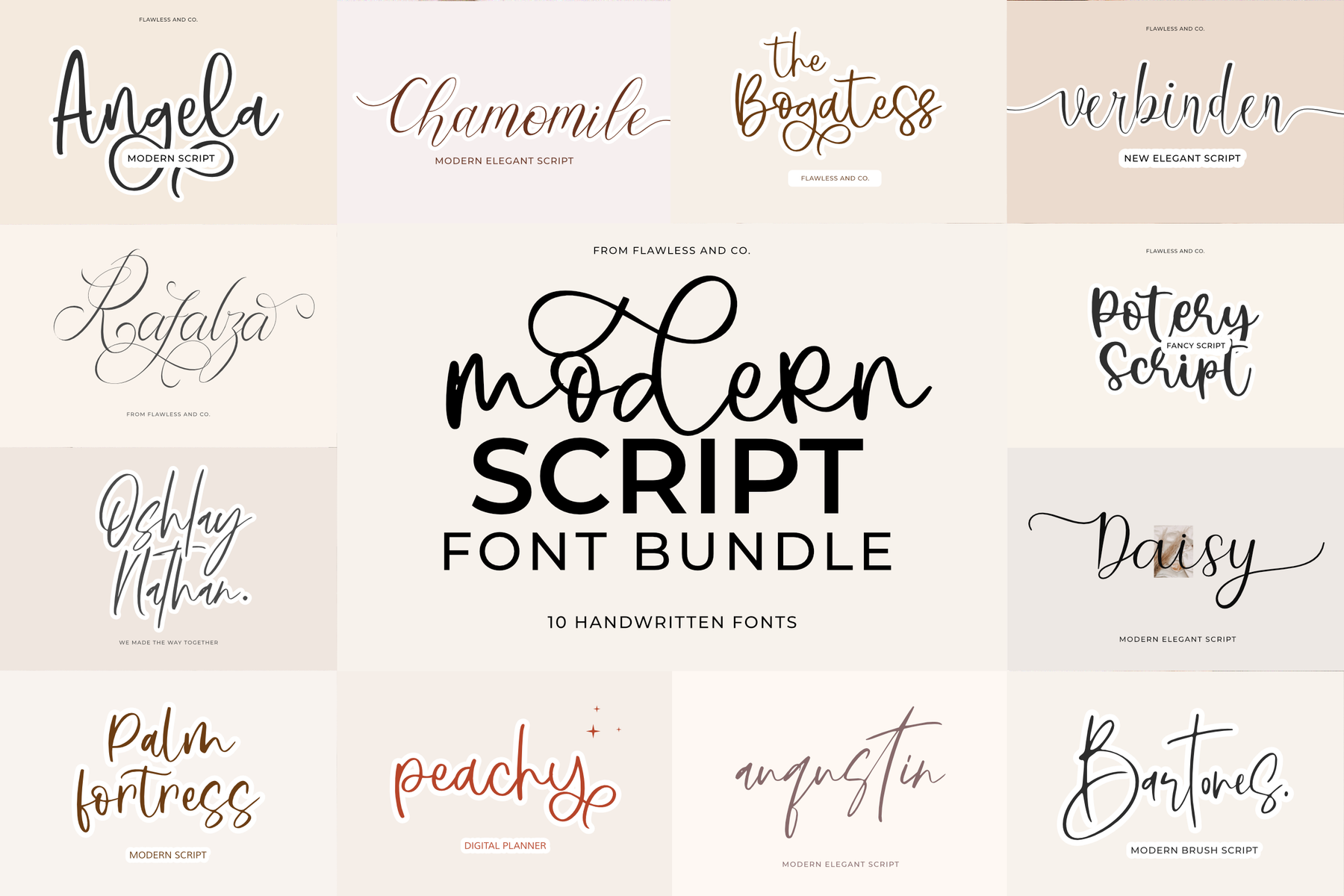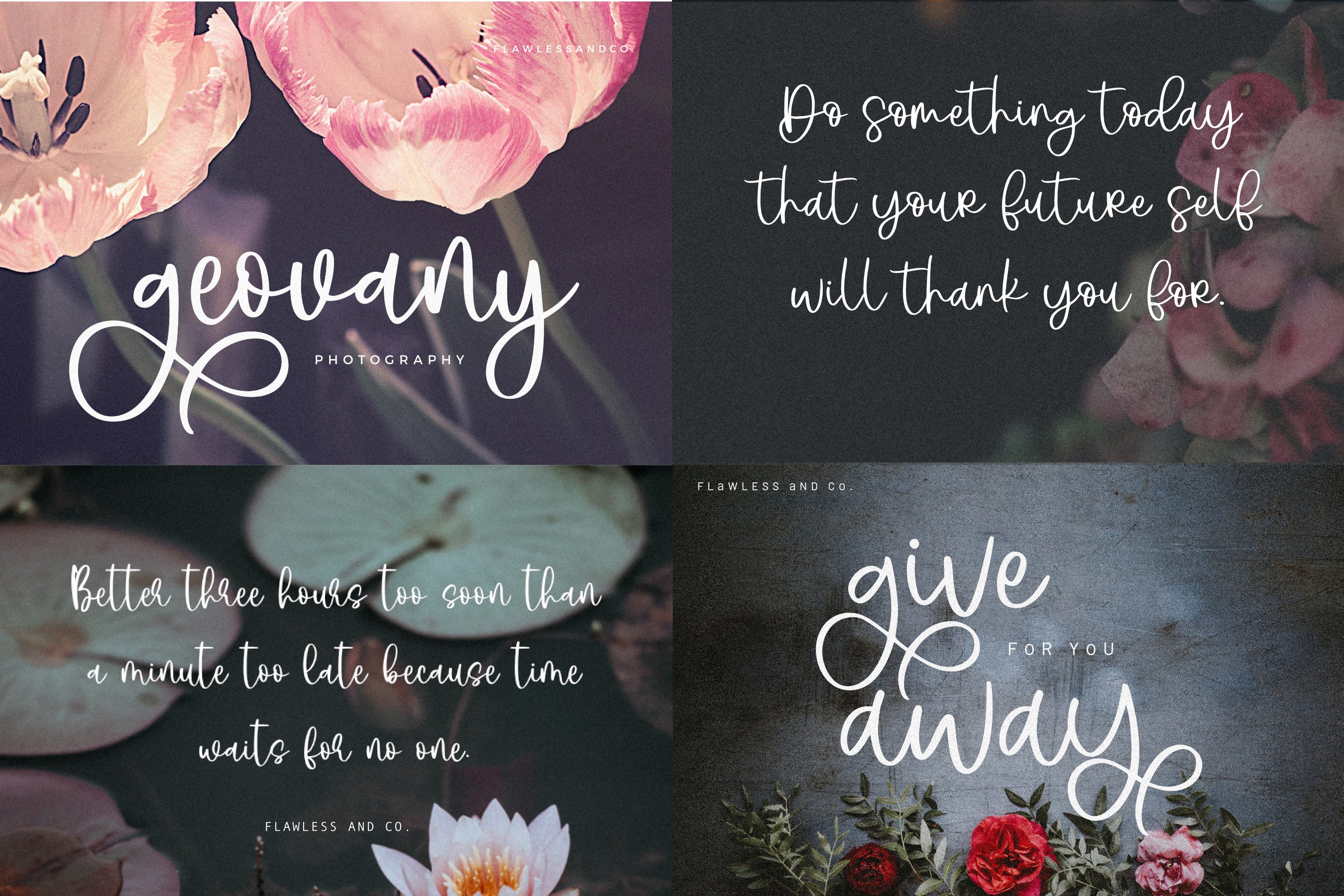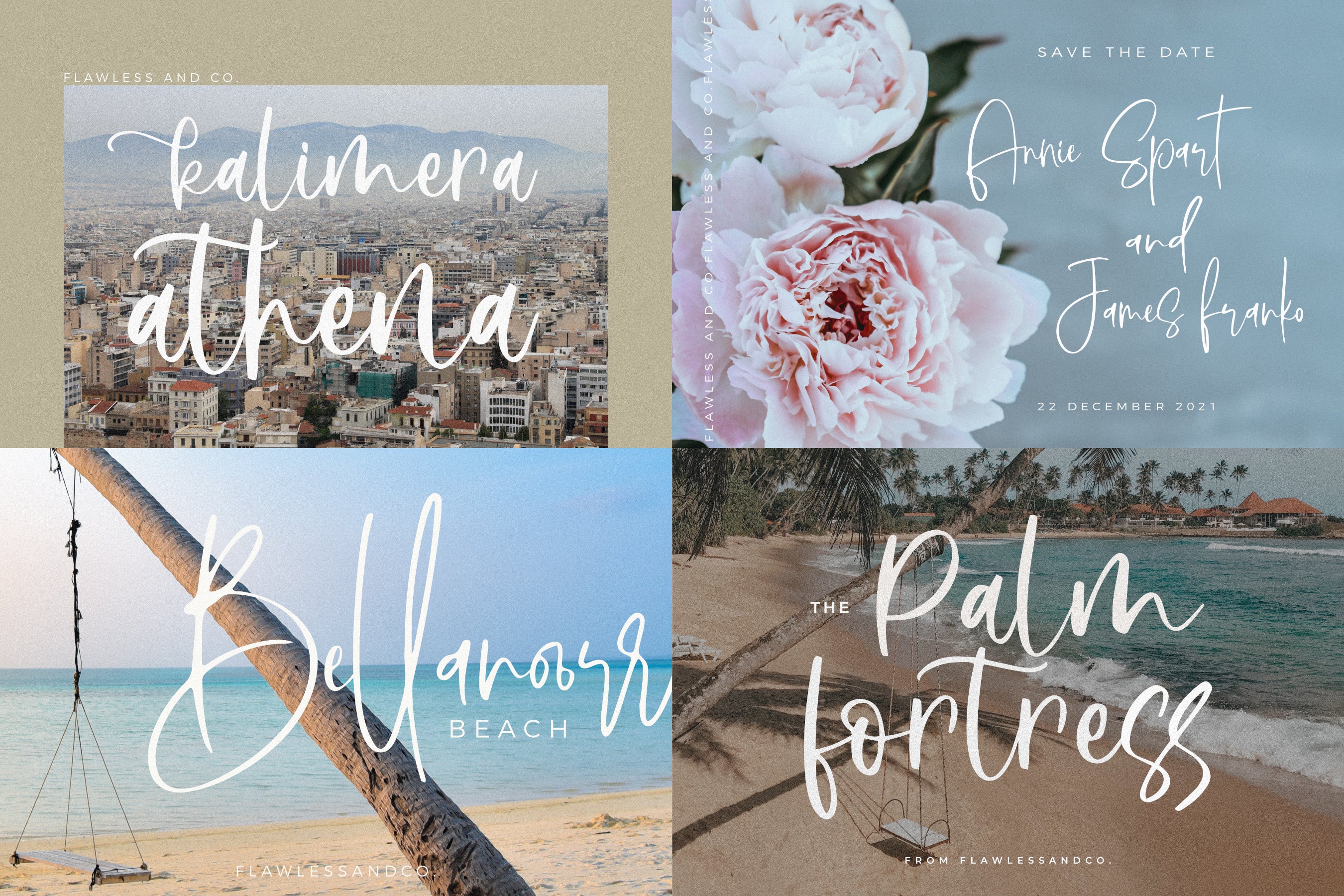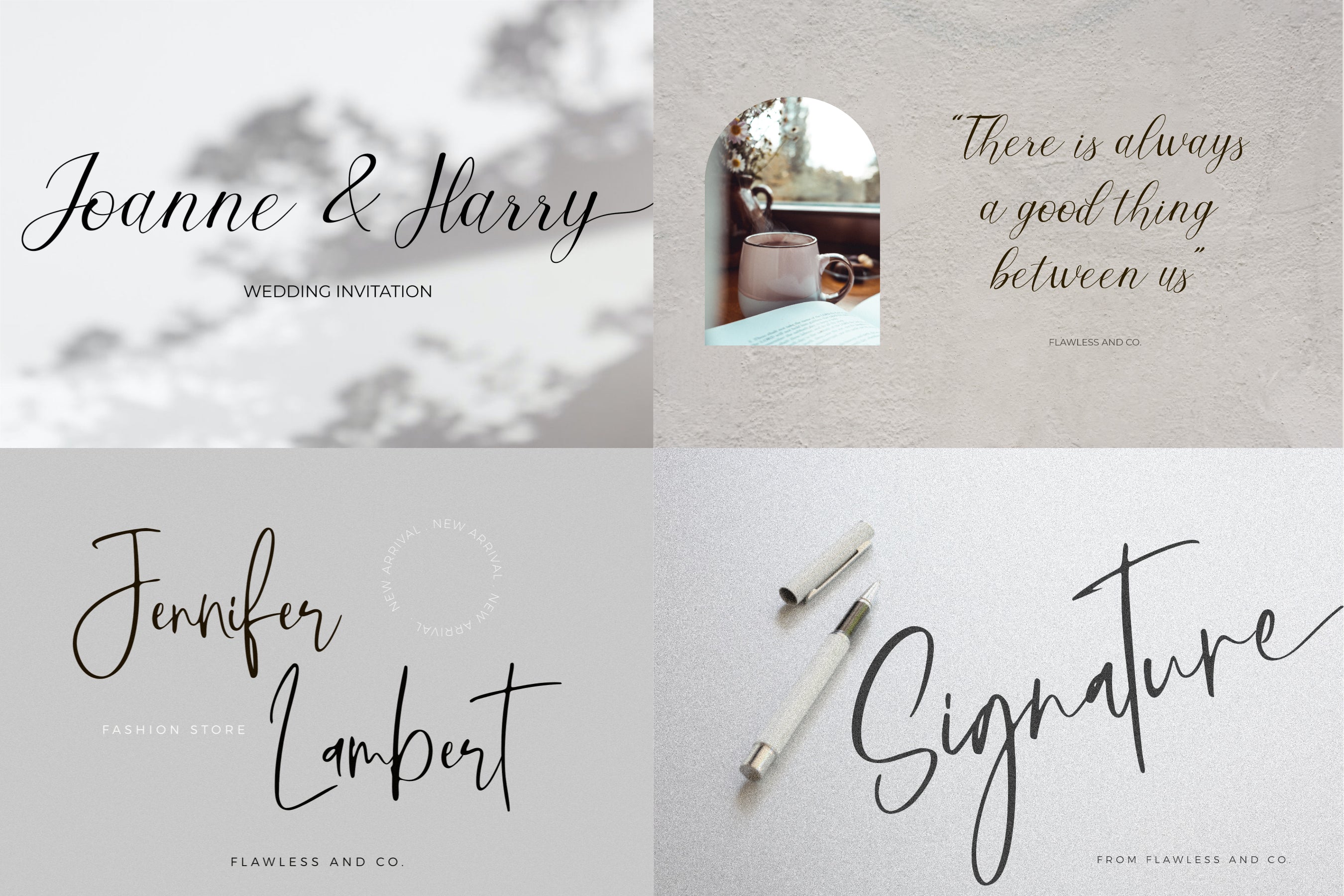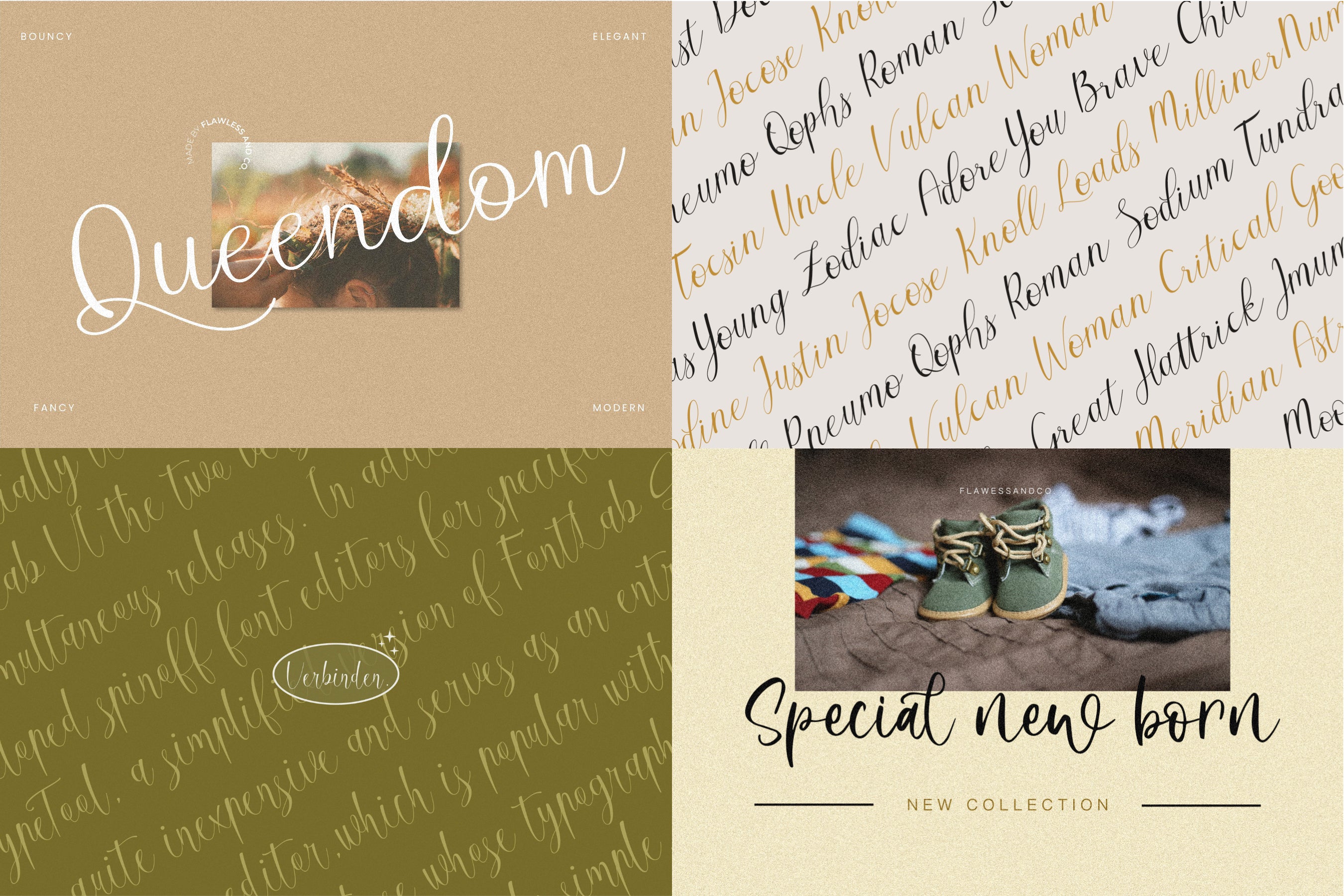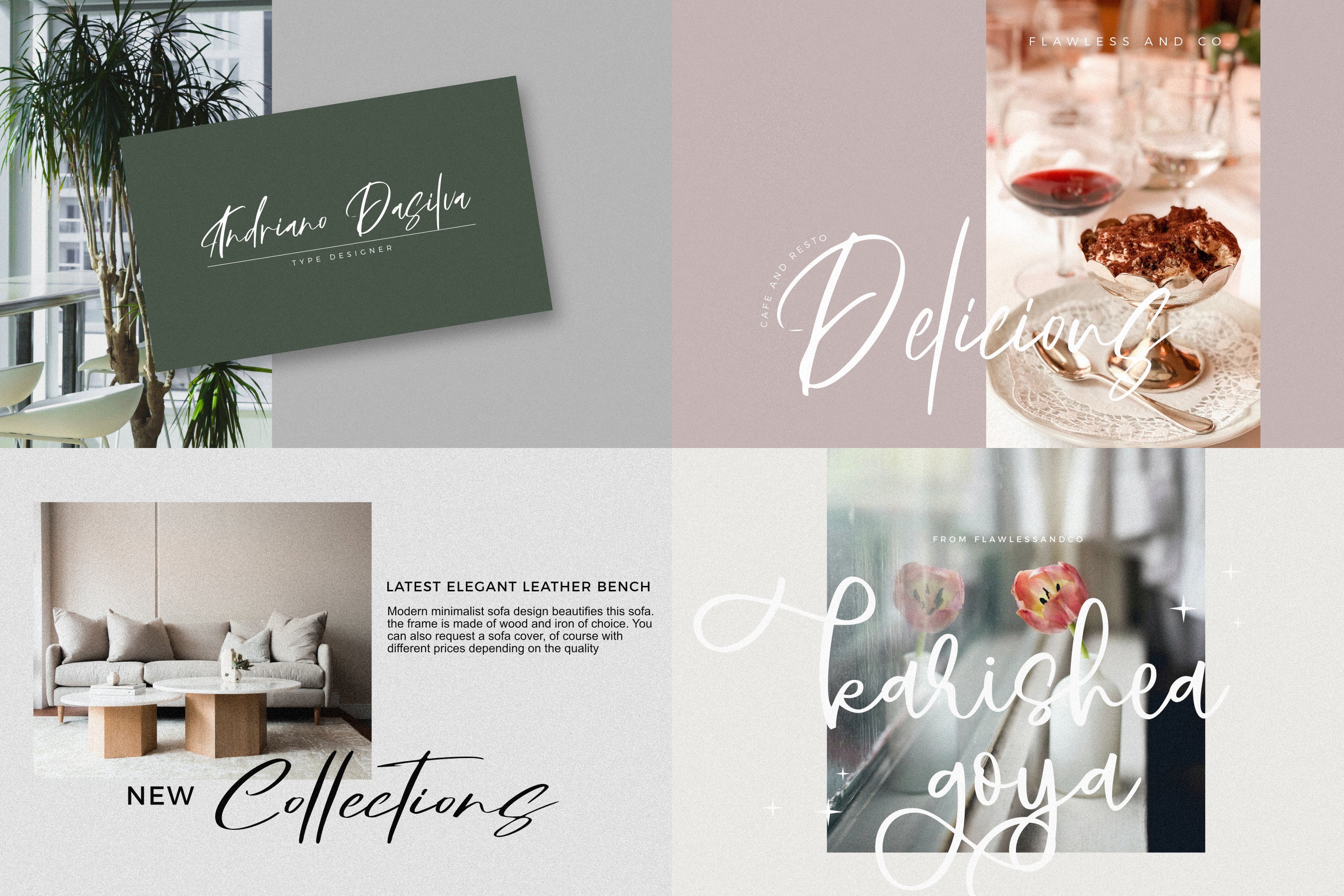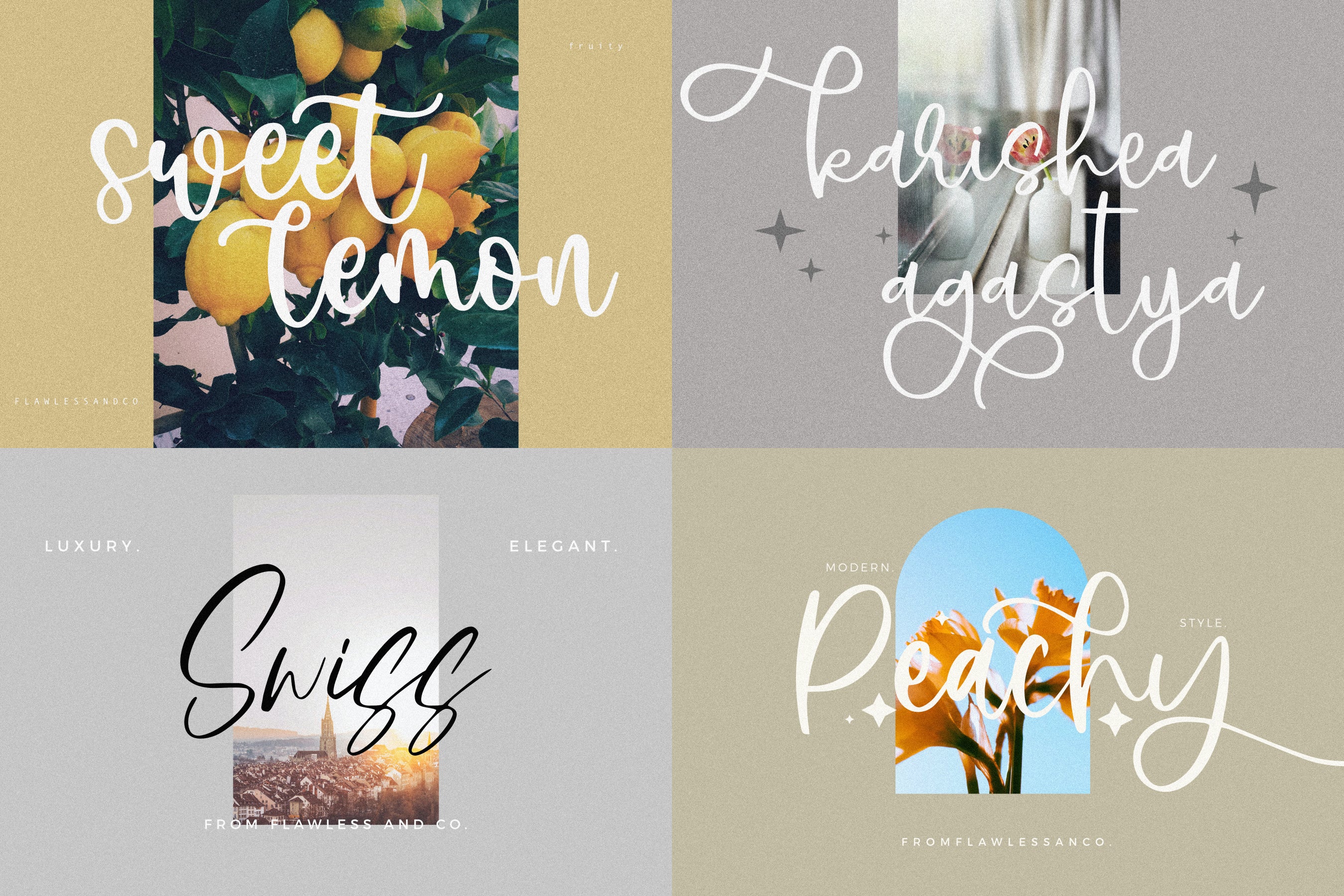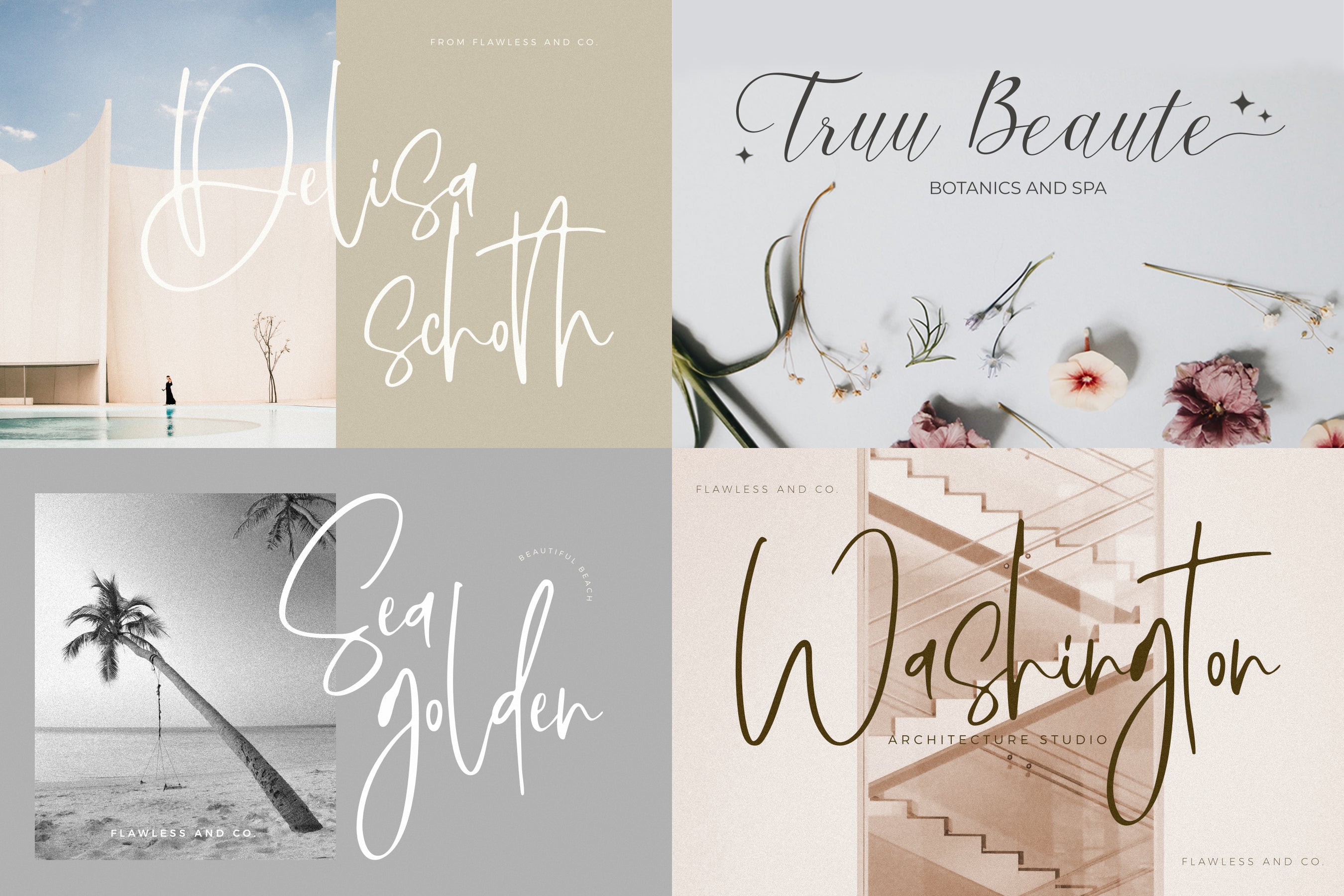
This bundle include 10 high quality script font,this style gives a feel of Girly, modern, Suitable for any graphic designs such as branding materials, t-shirt, print, business cards, logo, poster, t-shirt, photography, quotes .etc